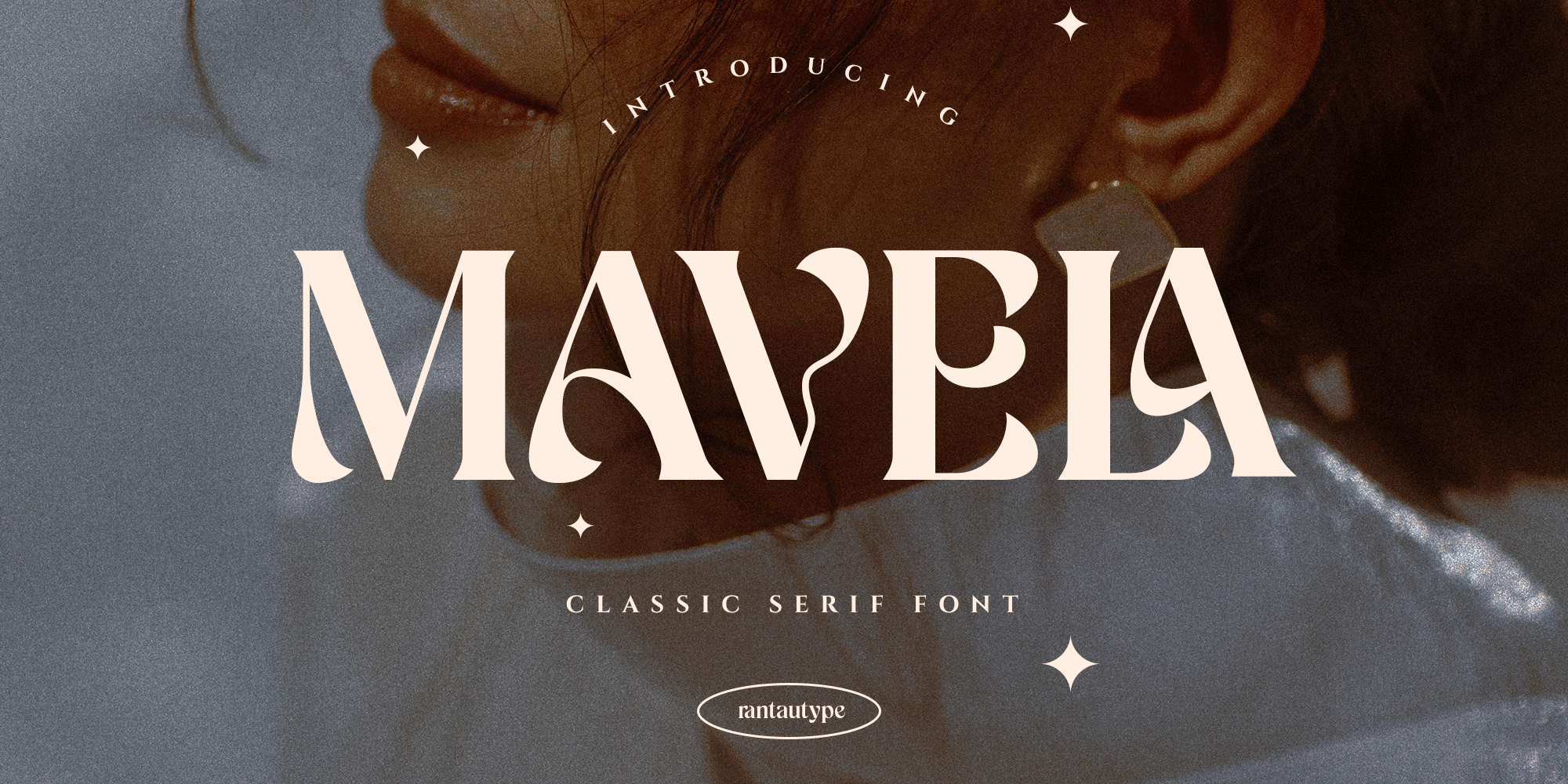
Mavela Font is perfect for branding projects, logo design, wedding invitations, social media graphics, packaging design, book covers, poster design, website headers, and luxury brand identity. This versatile typeface works exceptionally well in fashion magazines, cosmetic packaging, restaurant menus, and high-end marketing materials.
What makes Mavela Font exciting is its elegant blend of modern sophistication and classic charm. The font features graceful curves, refined letterforms, and exceptional readability that captures attention while maintaining professionalism. Its unique character set includes stylistic alternates and ligatures that add personality to any design project.
Mavela Font family includes multiple weights and styles: Regular, Bold, Light, Italic, Bold Italic, and Light Italic variations. Each style maintains the font's distinctive characteristics while offering designers flexibility for various applications and hierarchical typography needs.
Whether you're working on corporate branding, editorial design, or creative projects, Mavela Font Free Download provides the perfect solution for designers seeking a premium typeface. The font's versatility makes it suitable for both digital and print applications, ensuring consistent quality across all media platforms.